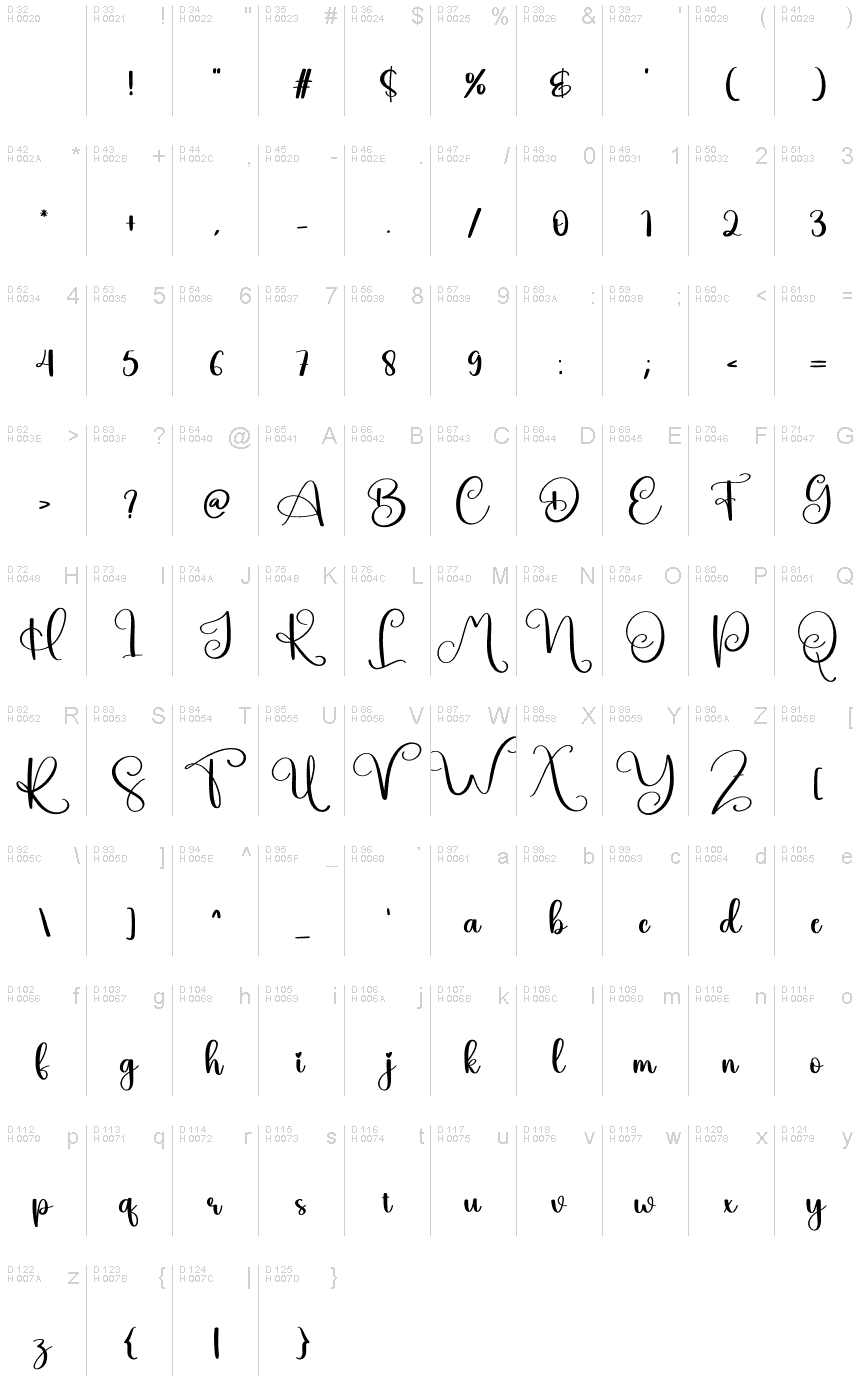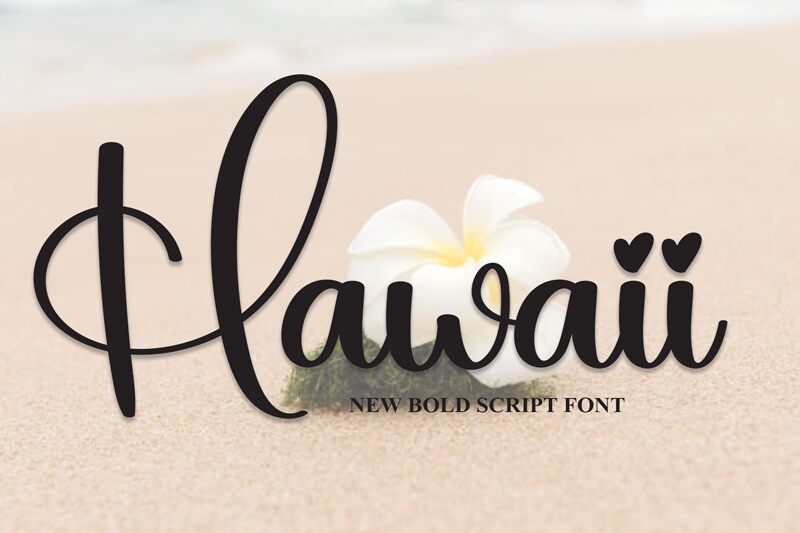
Hawaii
Hawaii, a captivating calligraphy font designed by Scratchones, effortlessly combines elegance with a touch of whimsy. Its intricate strokes and graceful curves make it perfect for adding a touch of sophistication to wedding invitations, event posters, and luxury branding projects. The versatility of Hawaii lends itself beautifully to fashion magazines, beauty blogs, and lifestyle websites seeking a font that exudes creativity and flair. With its flowing characters and timeless appeal, Hawaii is an invitation to explore the enchanting world of handwritten artistry in your design projects.